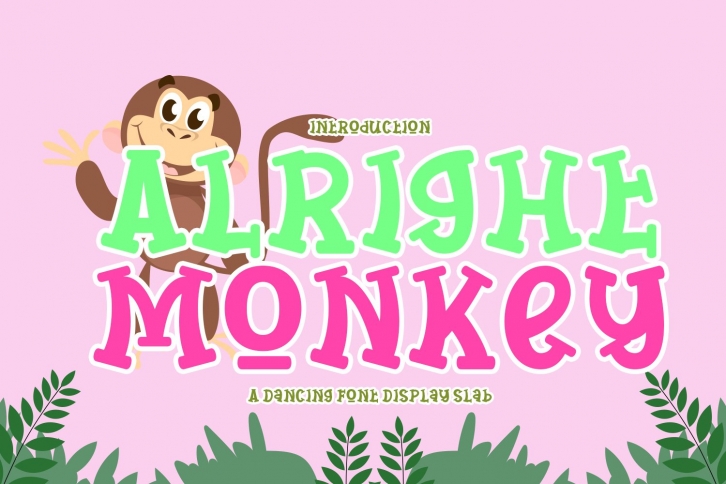
Alright Monkey is a trendy and unique font with an authentic style. It was designed by HD font studios and it's a great choice for creative people who need such a font. It was released on April 26, 2022 and the file size is 18.97 MB. Alright Monkey will add an organic vibe to any design idea!